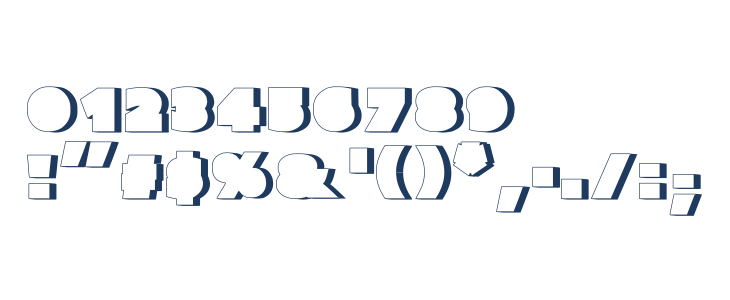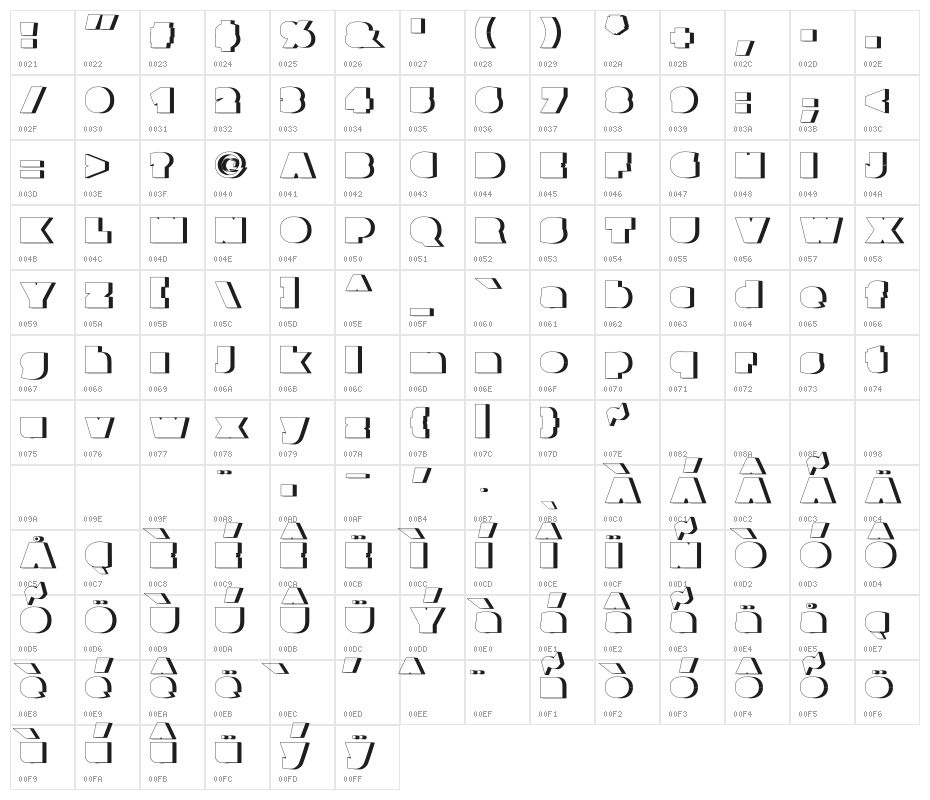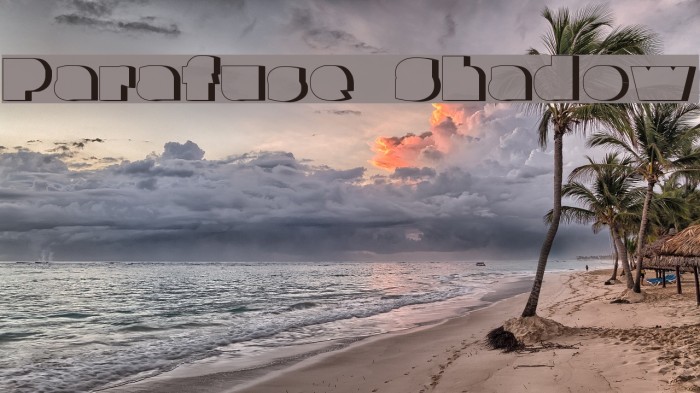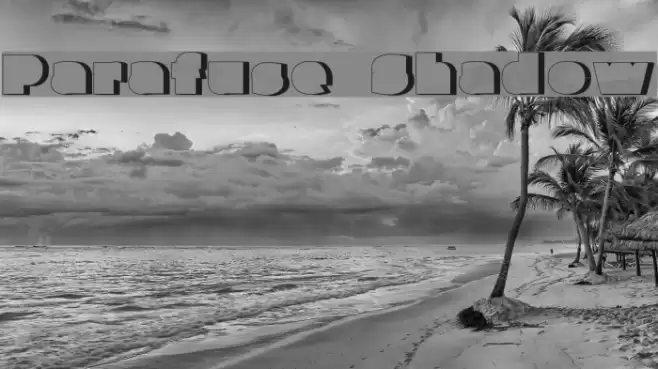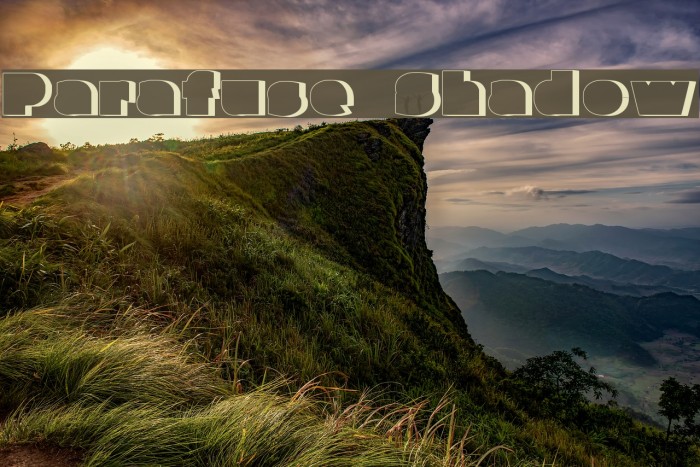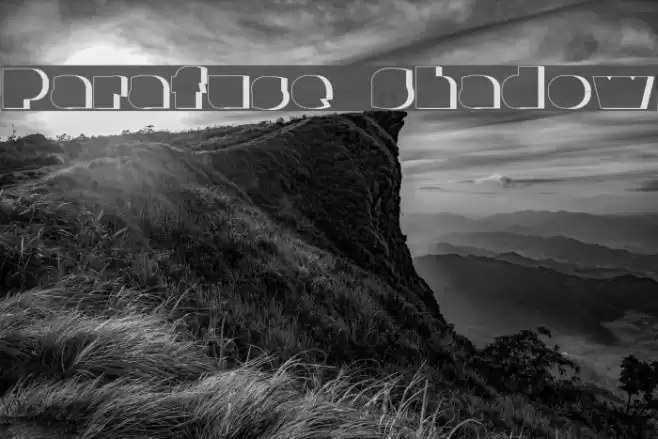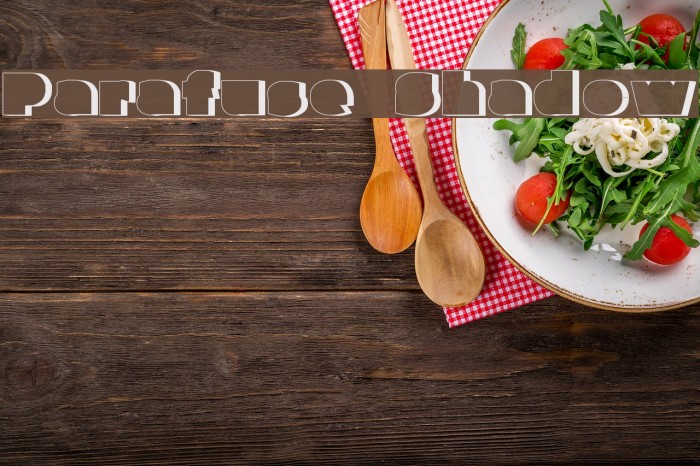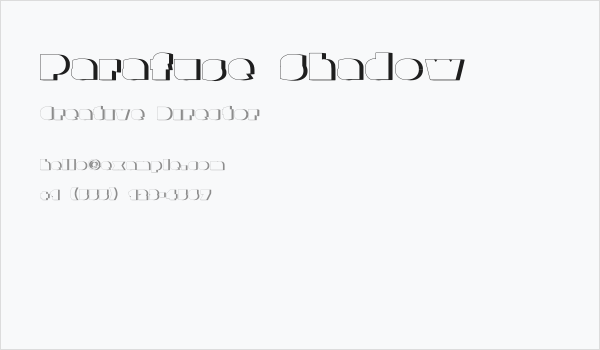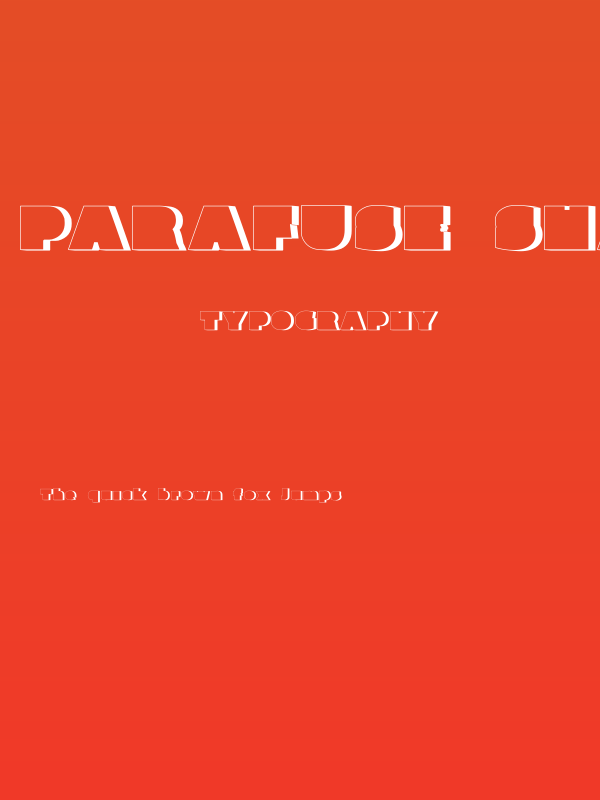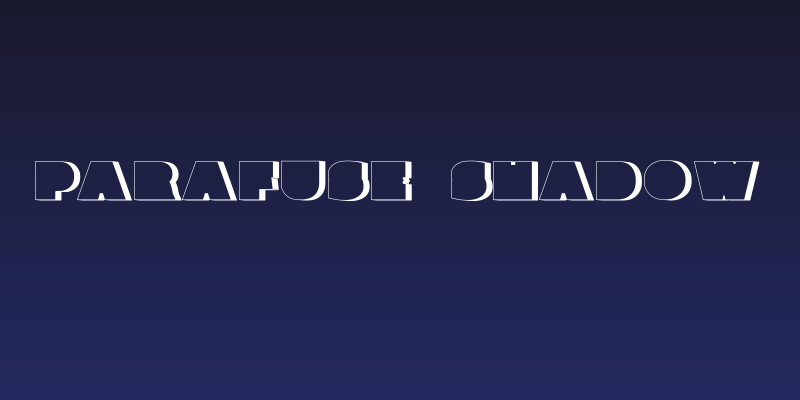
Parafuse Shadow Font
Parafuse Shadow Description
This font features a bold, geometric design with a distinctive shadow effect that adds depth and dimension to each character. The uppercase and lowercase letters maintain a consistent style, characterized by clean lines and sharp angles. The numerals and special characters are equally bold, ensuring uniformity across all text. The shadow effect gives the font a three-dimensional appearance, making it stand out in any design. This font is ideal for creating eye-catching headlines and logos, where a modern and impactful look is desired.
| Proposed Projects | Ideal for branding, posters, headlines, and any design requiring a modern, standout typeface. |